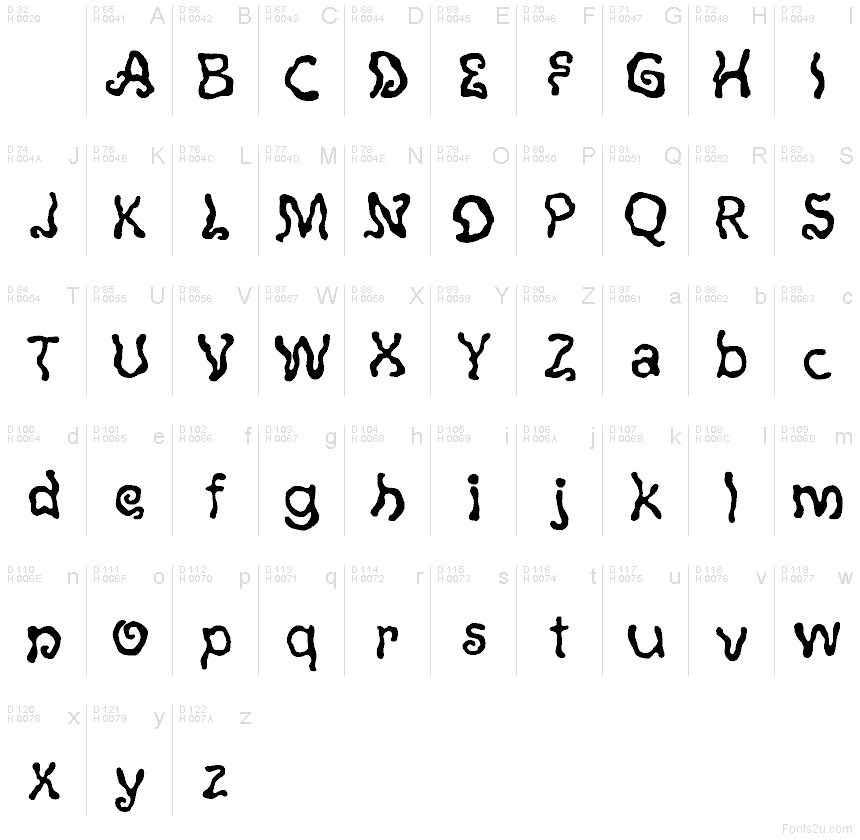
CS Nikola Regular Demo
CS Nikola font designed by Craft Supply Co. offers a distorted display vibe with suspended, irregular shapes. The handcrafted feel creates a whimsical aesthetic with artistic touches enhancing its unique character. The organic flow is elegant and eye-catching.